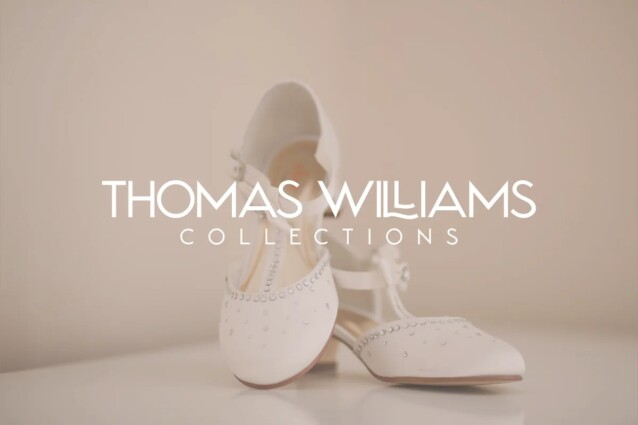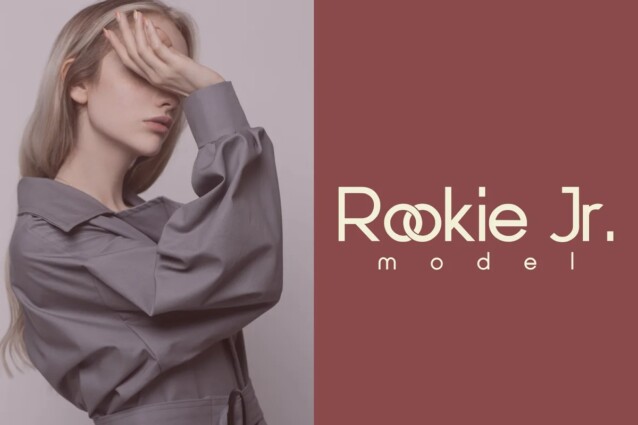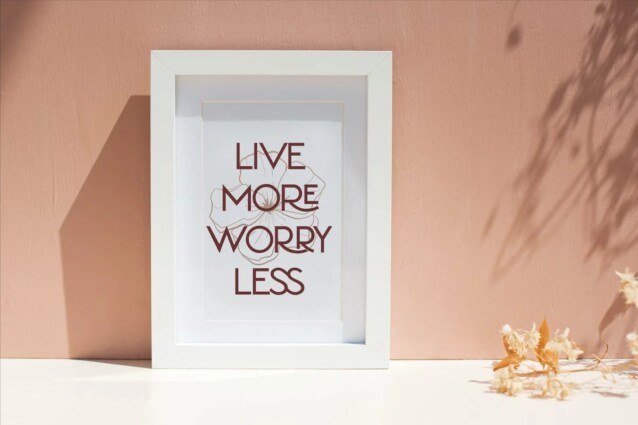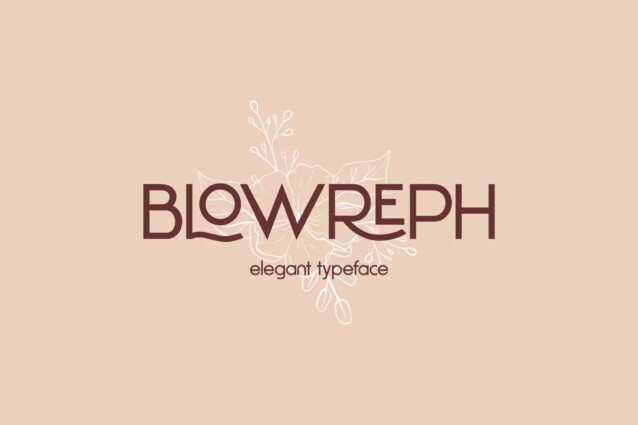
Blowreph Font is a simple elegant modern typeface with beautiful ligatures, tons of special alternative glyphs, ornament and multilingual support. Clean and minimalistic works great for logos, headlines, posters, packaging, branding, beauty, interiors, fashion, and more! Have fun and create more.